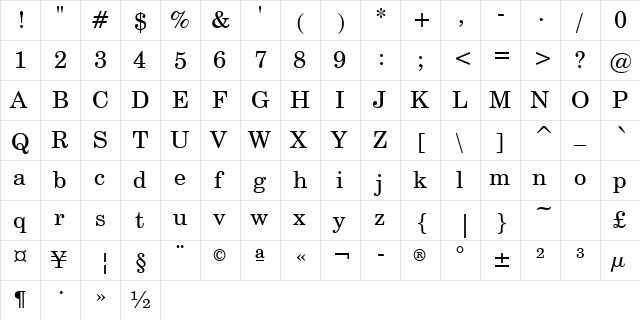
CentSchbkGreek BT Roman
Design Context for CentSchbkGreek BT Typeface
CentSchbkGreek BT offers clean, dependable letterforms without strong stylistic allegiance, making it a practical choice for designers who need flexibility.